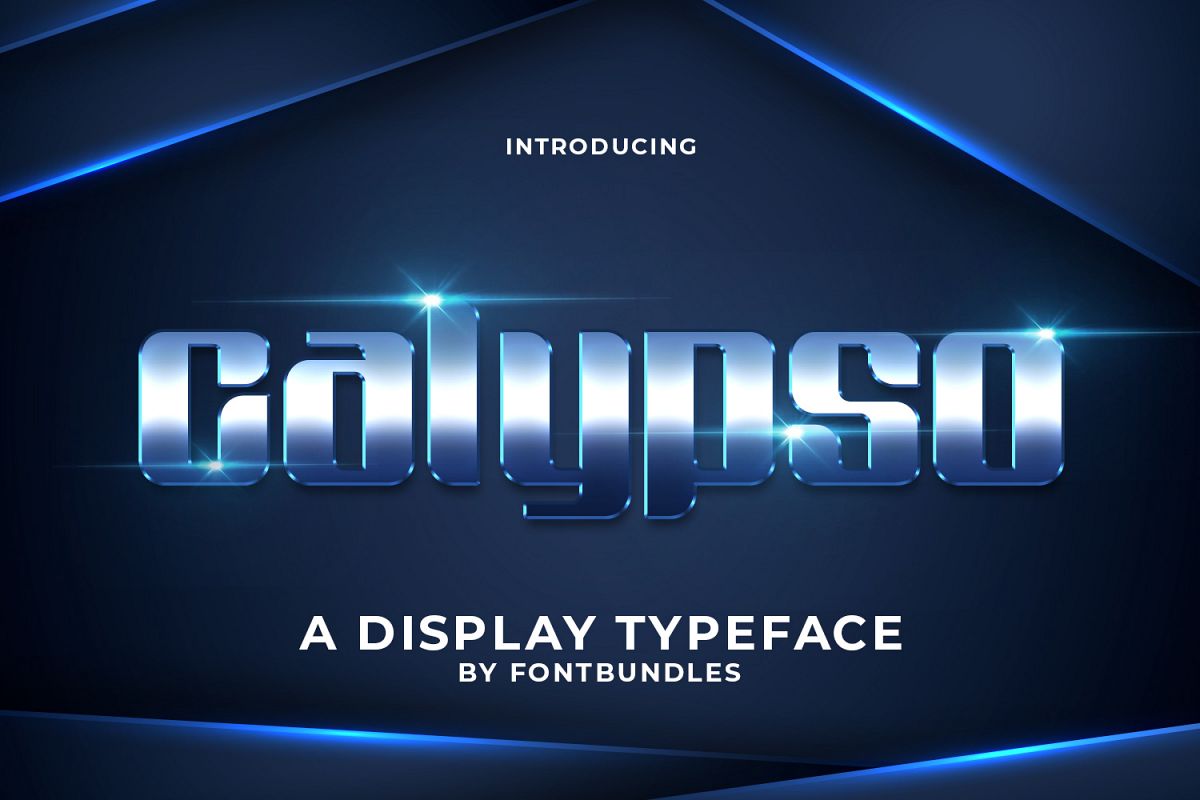
Calypso
Calypso is a modern display typeface. Perfect for header, headline, poster, branding, logo, badges, t-shirt, merchandise, name card, bussines card, and many more.